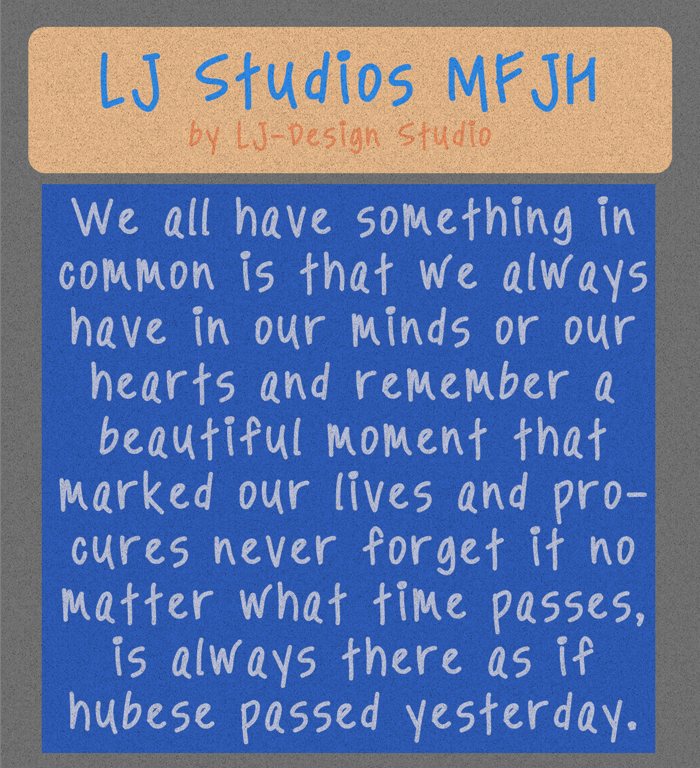
LJ Studios MFJH Font
Typographical font designed freehand on Android devices licensed Free commercial use.
Fuente Tipográfica diseñda a mano alzada en dispositivos Android con licencia de uso comercial libre.